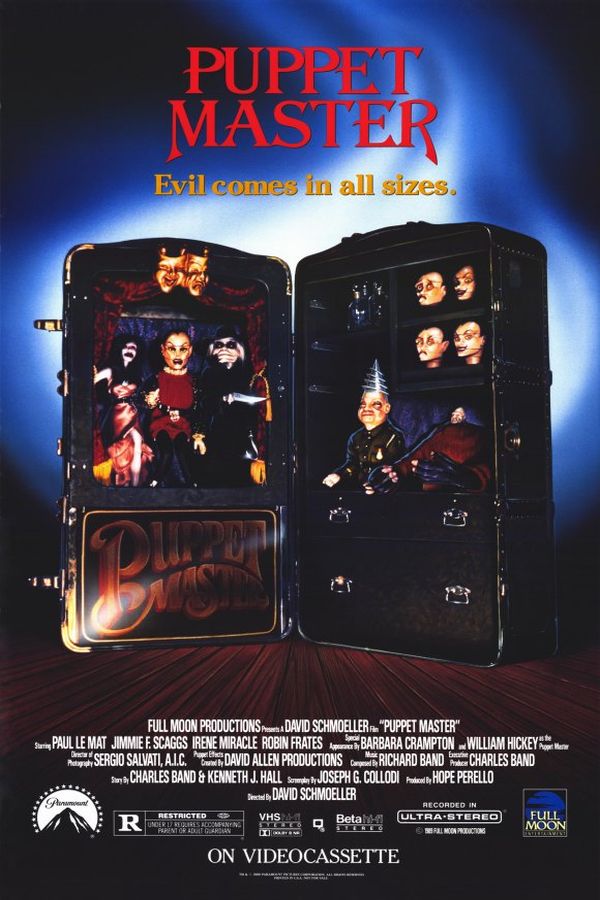
Puppet Master Font
Fonts in UsePuppet Master is a horror movie franchise that centers around a group of killer puppets created by a puppeteer with supernatural powers named Andre Toulon.
The poster for the "Puppet Master" movie showcases a decorative serif font, likely Algerian Basic D (with a slight alteration to the letter "A"). Further details about the font can be found here.